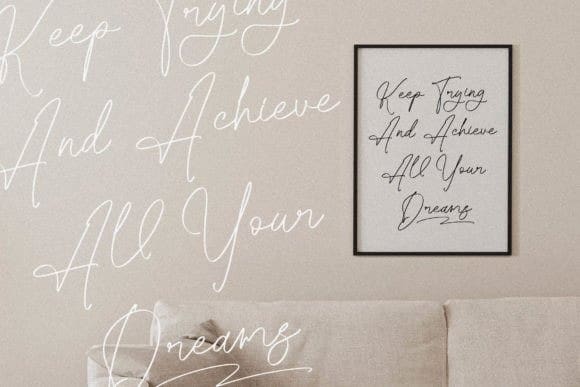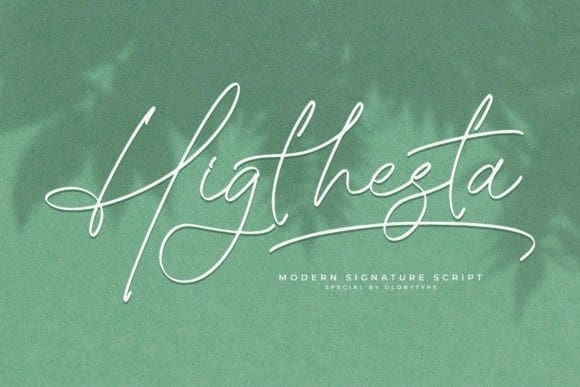
Higthesta Script Font
Higthesta Script Font is a unique and elegant handwritten font. It looks beautiful on a variety of designs requiring a personalized style, such as wedding invitations, thank you cards, greeting cards, logos, and so on.